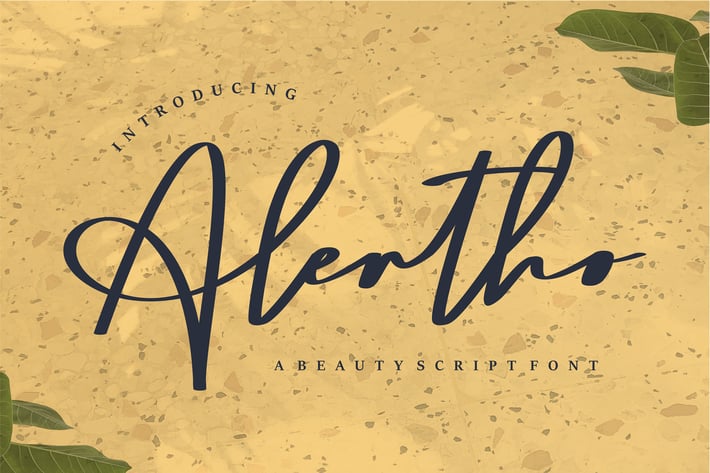
Alertho | A Beauty Script Font
Alertho | A Beauty Script Font with a calligraphy style, So beautiful on invitation like greeting cards, branding materials, business cards, quotes, posters, and more!